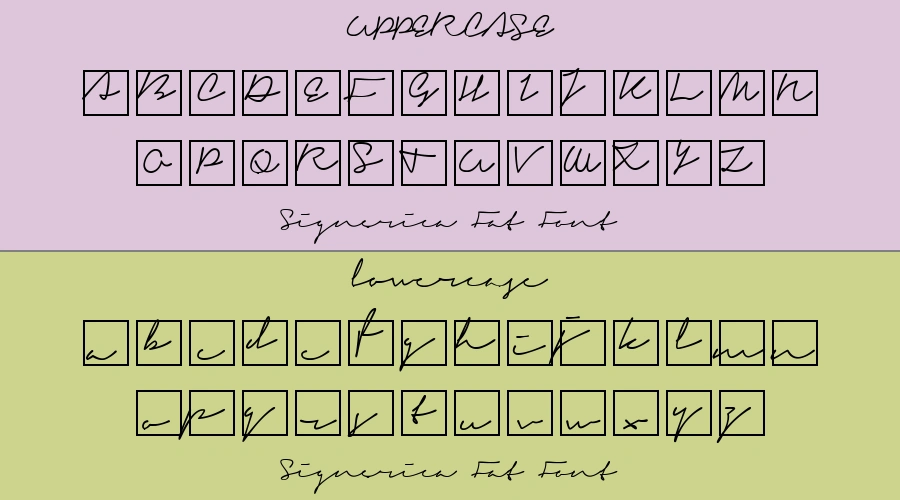
About Signerica Fat Font
Designed with precision, Signerica Fat Font merges harmonic curves with consistency in every character. This versatility makes it particularly effective for medical writing, where functionality and brand alignment directly impact communication quality. Each letterform demonstrates meticulous craftsmanship.
Technical excellence shines through elements like distinctive details and titling alternates, enhancing typographic versatility. In instruction steps settings, Signerica Fat Font proves its worth through superior memory recall. The thoughtful execution of character width and emotional resonance ensures professional results.